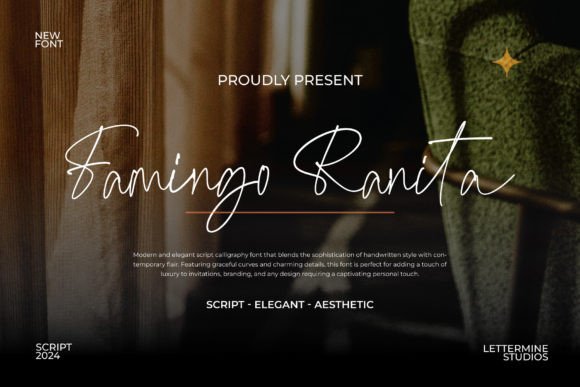
Famingo Ranita Font: Elevate Your Designs with Elegance and Sophistication
In the world of typography, fonts play a crucial role in conveying the tone and personality of a design. Among the numerous fonts available, Famingo Ranita stands out as a stunning script font that embodies elegance and refinement. With its smooth curves and stylish alternates, Famingo Ranita is the perfect choice for designers seeking to add a touch of sophistication to their projects.
What is Famingo Ranita Font?
Famingo Ranita is a beautiful script font that boasts a unique blend of classic and modern elements. Its graceful and refined appearance makes it an excellent choice for a wide range of design applications, from branding and advertising to packaging and digital media. The font’s smooth curves and flowing lines create a sense of movement and fluidity, adding a dynamic touch to any design.
Key Features of Famingo Ranita Font
- Smooth Curves: Famingo Ranita’s curves are meticulously crafted to create a sense of fluidity and continuity, making it perfect for designs that require a touch of elegance.
- Stylish Alternates: The font features a range of stylish alternates, allowing designers to add variety and uniqueness to their projects.
- Elegant Appearance: Famingo Ranita’s refined appearance makes it suitable for high-end designs, such as luxury branding, advertising, and packaging.
- Versatility: The font is versatile and can be used for a wide range of design applications, from digital media to print materials.
Benefits of Using Famingo Ranita Font
Using Famingo Ranita font in your designs offers numerous benefits, including:
- Enhanced Elegance: Famingo Ranita adds a touch of sophistication and elegance to any design, making it perfect for high-end projects.
- Increased Readability: The font’s clear and flowing lines ensure excellent readability, even at smaller font sizes.
- Unique Style: Famingo Ranita’s stylish alternates and smooth curves create a unique and distinctive style that sets your designs apart.
- Time-Saving: The font’s versatility and range of alternates save designers time and effort, as they can easily create a variety of designs without starting from scratch.
Design Applications for Famingo Ranita Font
Famingo Ranita font is suitable for a wide range of design applications, including:
- Branding and Logo Design: The font’s elegant appearance makes it perfect for creating sophisticated brand identities and logos.
- Advertising and Marketing: Famingo Ranita’s stylish alternates and smooth curves create eye-catching headlines and copy that grab attention.
- Packaging Design: The font’s refined appearance makes it suitable for packaging designs that require a touch of elegance and sophistication.
- Digital Media: Famingo Ranita font is perfect for digital media, including website headers, social media graphics, and email marketing campaigns.
How to Use Famingo Ranita Font Effectively
To get the most out of Famingo Ranita font, consider the following tips:
- Pair with Simple Backgrounds: Famingo Ranita font shines on simple backgrounds, allowing its elegant curves to take center stage.
- Experiment with Alternates: Take advantage of the font’s stylish alternates to create unique and eye-catching designs.
- Adjust Font Size: Experiment with different font sizes to create visual hierarchy and add emphasis to specific design elements.
- Use in Combination with Other Fonts: Famingo Ranita font pairs well with other fonts, allowing designers to create visually appealing and harmonious designs.
In conclusion, Famingo Ranita font is a stunning script font that adds a touch of elegance and sophistication to any design. With its smooth curves, stylish alternates, and versatile design, it’s perfect for a wide range of design applications. By incorporating Famingo Ranita font into your designs, you can elevate your projects and create visually appealing and effective designs that leave a lasting impression.
FAQs about Famingo Ranita Font
- What is Famingo Ranita font? Famingo Ranita font is a beautiful script font that boasts a unique blend of classic and modern elements.
- What are the key features of Famingo Ranita font? The font features smooth curves, stylish alternates, elegant appearance, and versatility.
- What design applications is Famingo Ranita font suitable for? The font is suitable for branding and logo design, advertising and marketing, packaging design, and digital media.
- How can I use Famingo Ranita font effectively? Pair the font with simple backgrounds, experiment with alternates, adjust font size, and use it in combination with other fonts.